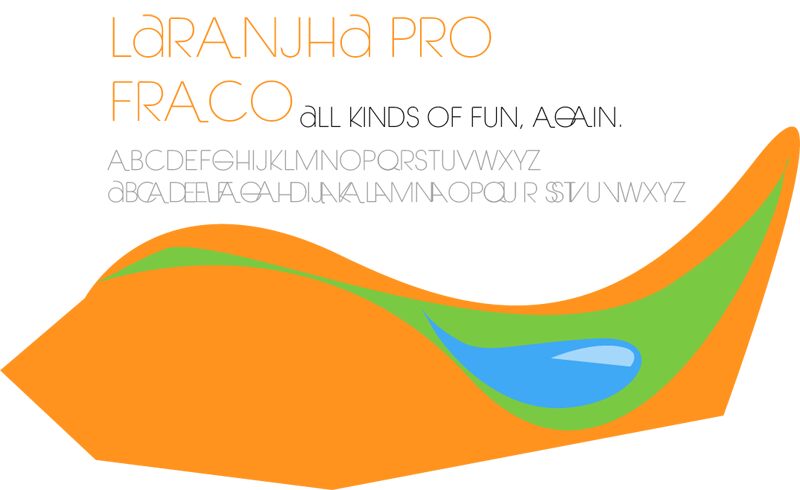
Laranjha Pro Fraco, a free geometric sans serif by Álvaro Thomáz of 8own, uses hairline strokes and dramatically open proportions. Its circles are nearly perfect, and sharp triangular forms bring a measured architectural look. Tight joins and occasional overlaps turn neighboring letters into continuous linear constructions.
A contemporary architecture studio or design-led fashion label could use it for branding that feels precise and rarefied. It also suits exhibition posters, editorial covers, and cultural event graphics. In these settings, the lettering can become part of a diagram or structural motif rather than serving only as text within the finished visual system.
Laranjha Pro Fraco